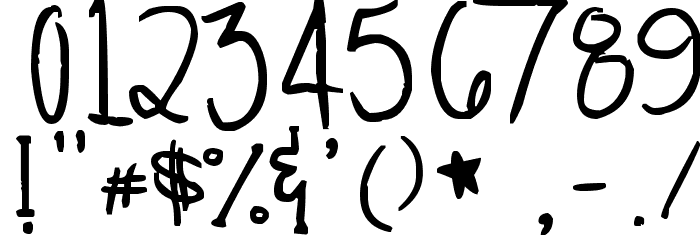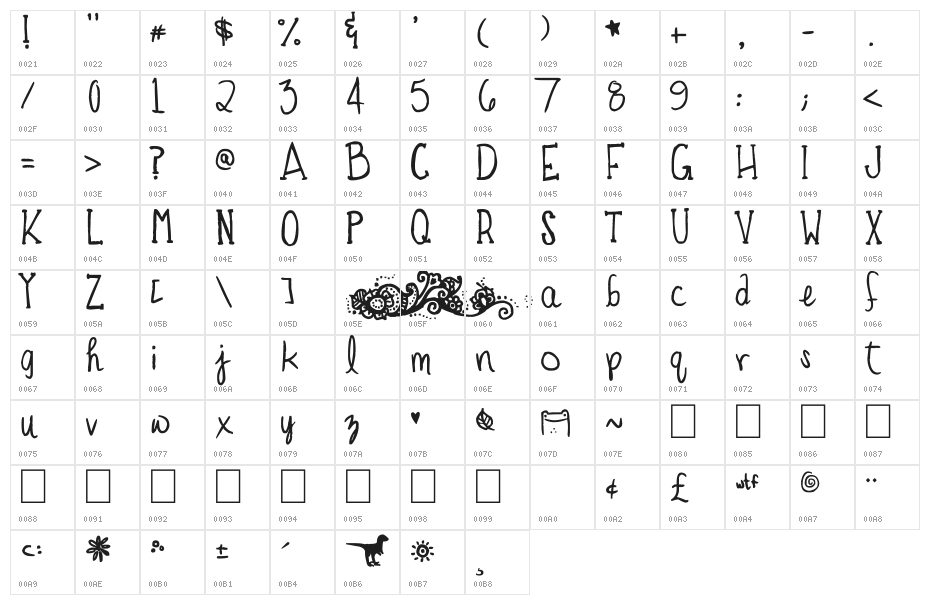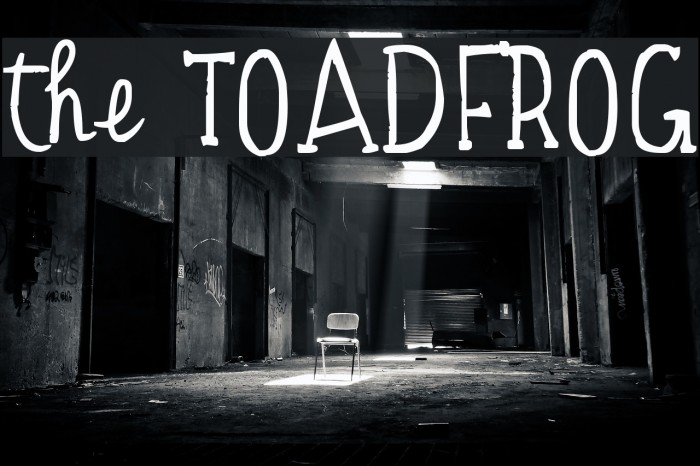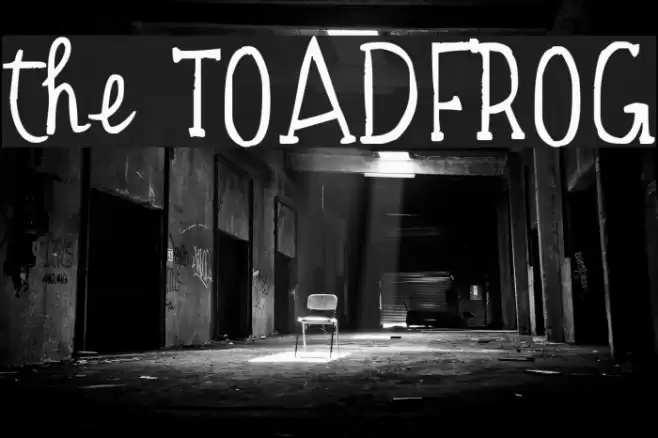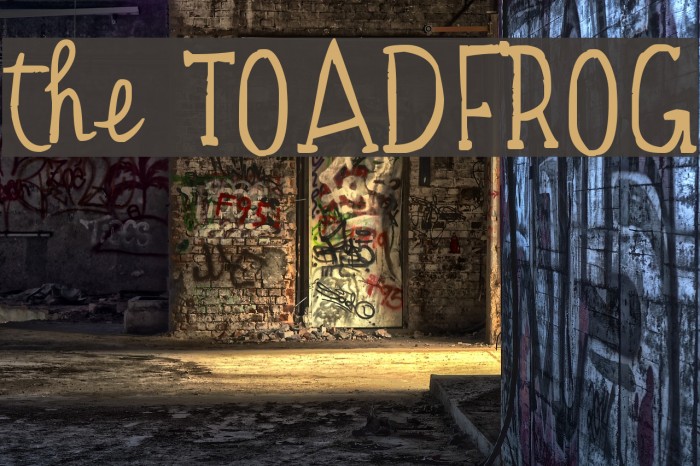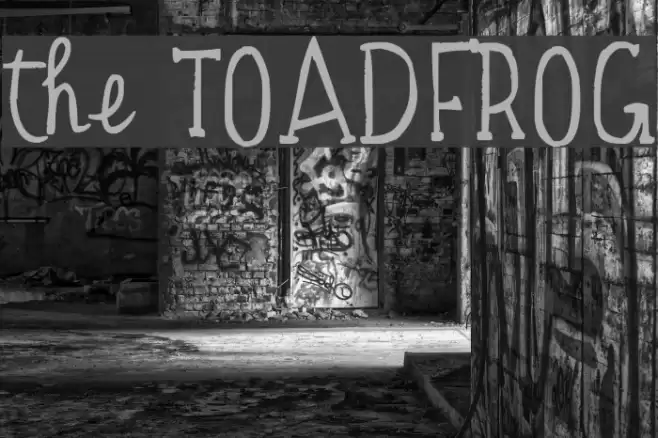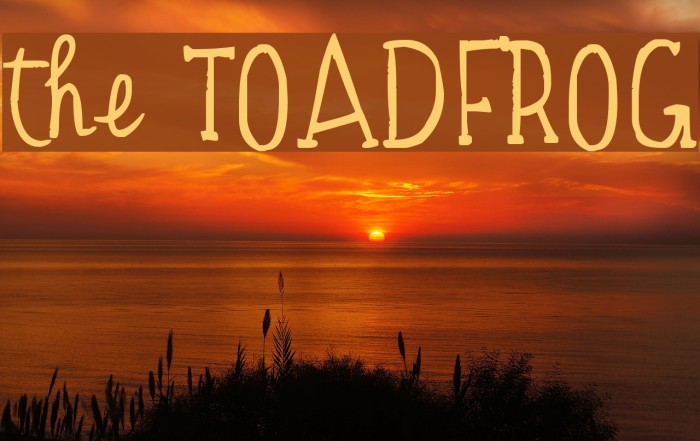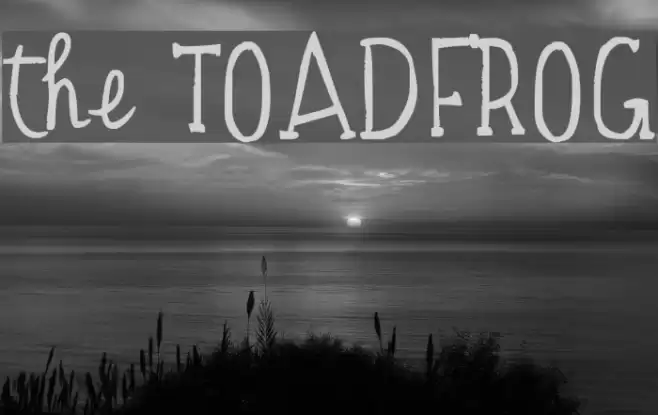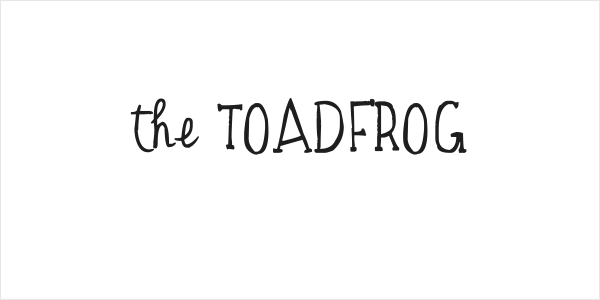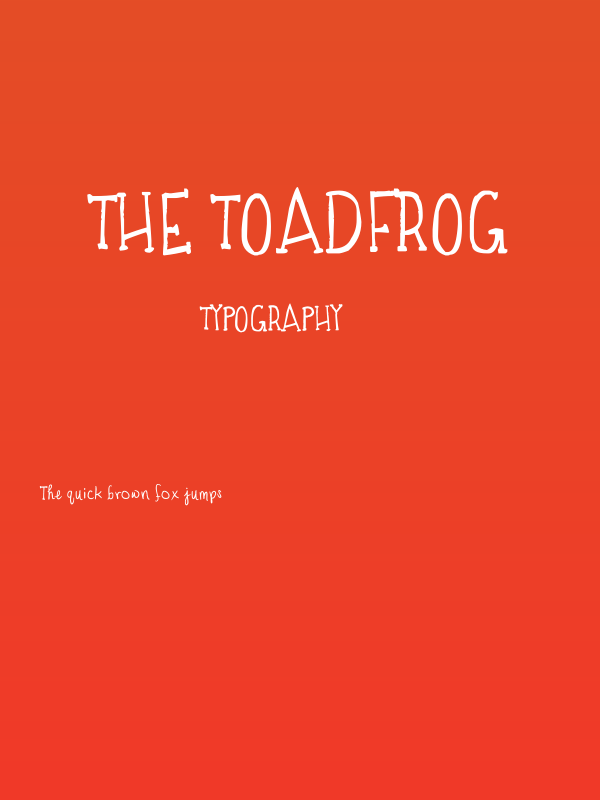
the TOADFROG Font
the TOADFROG Description
This font exhibits a playful and whimsical style, characterized by its hand-drawn appearance. The uppercase letters are bold and slightly irregular, giving a sense of spontaneity and creativity. The lowercase letters maintain the same playful quality, with some letters featuring unique loops and curves that add to the font's charm. The numbers are equally expressive, with varying stroke thicknesses that contribute to the overall dynamic feel. Special characters are included, each maintaining the font's distinctive style. This font is perfect for projects that require a fun and informal touch.